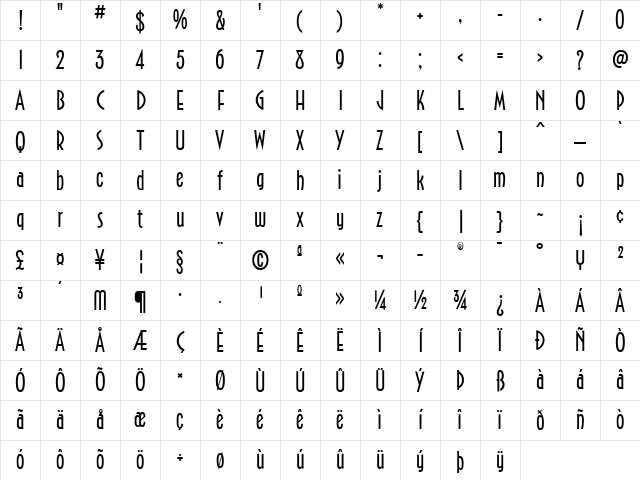
NewportClassicSG wears its vintage influences proudly, with letterforms that recall mid-century signage, classic packaging, and nostalgia-driven design.
Font Pairing: Combine NewportClassicSG with a simple slab or neutral sans - period-accurate companions reinforce the vintage feel without competing for attention.
Pro Tip: Lean into NewportClassicSG's period character by pairing it with aged paper textures, muted colour palettes, and vintage illustration styles.